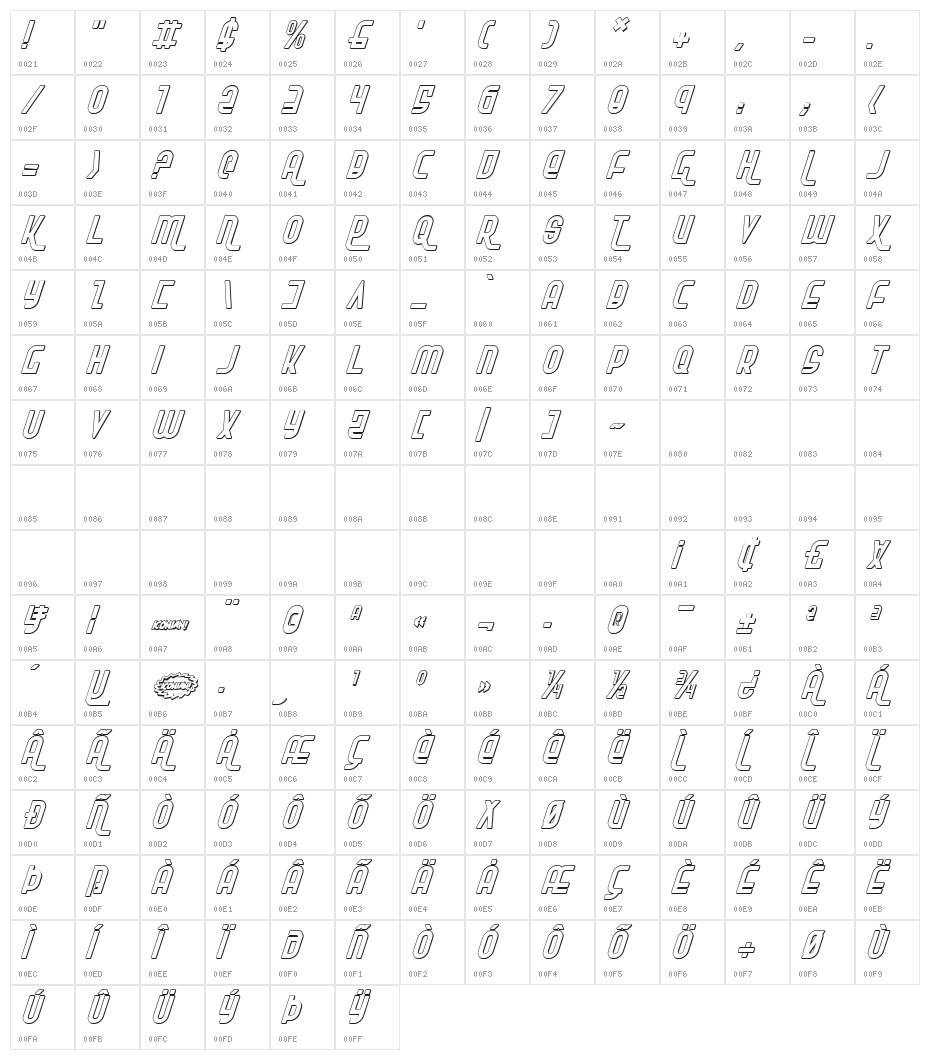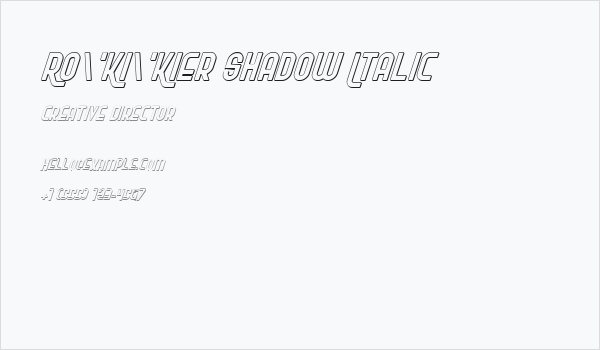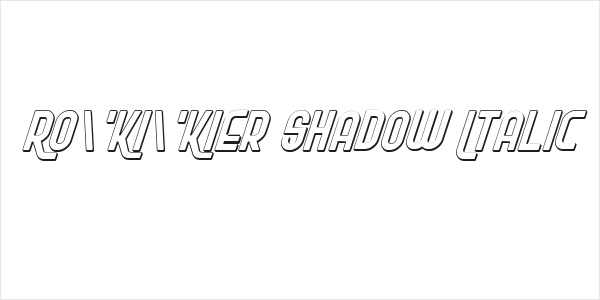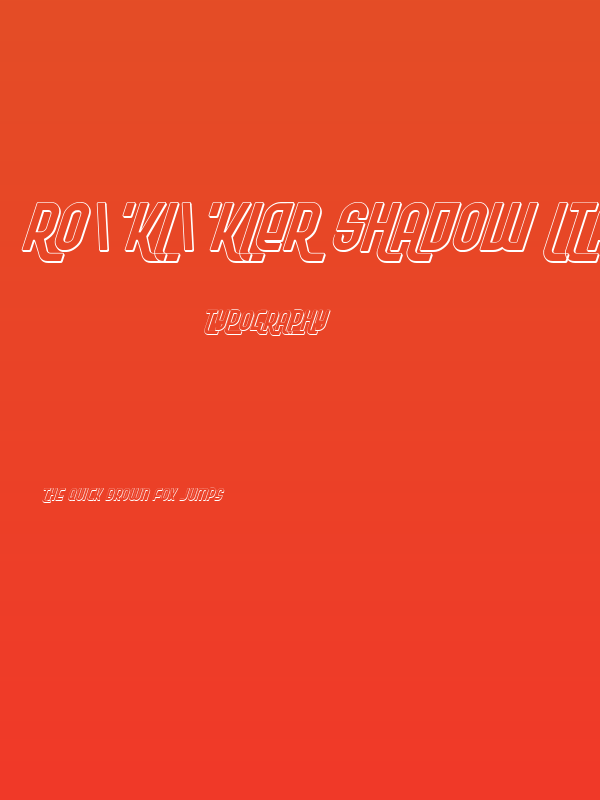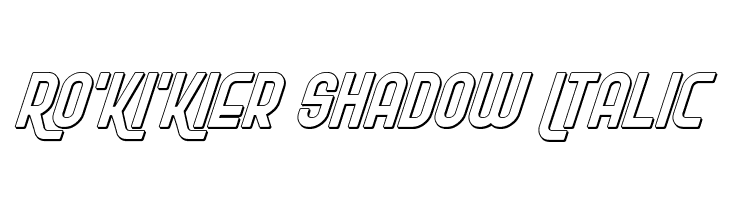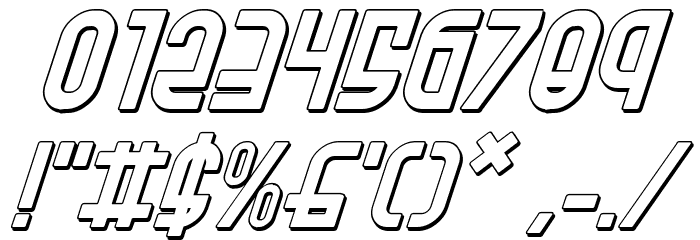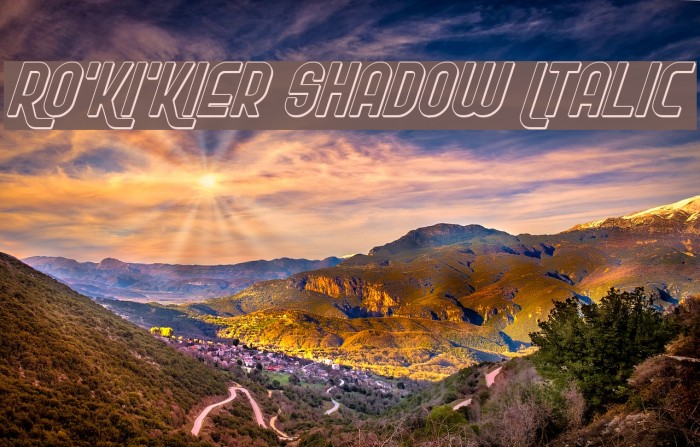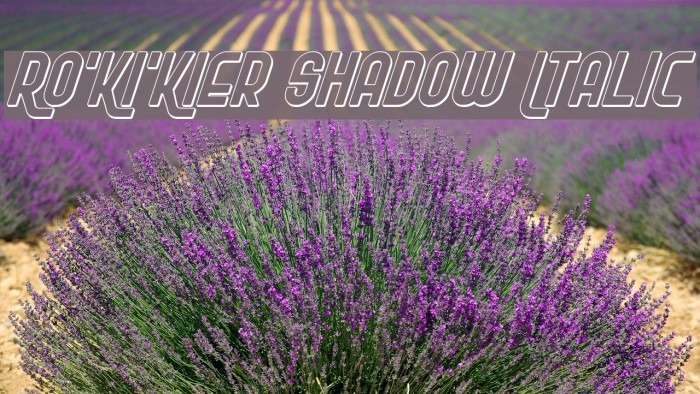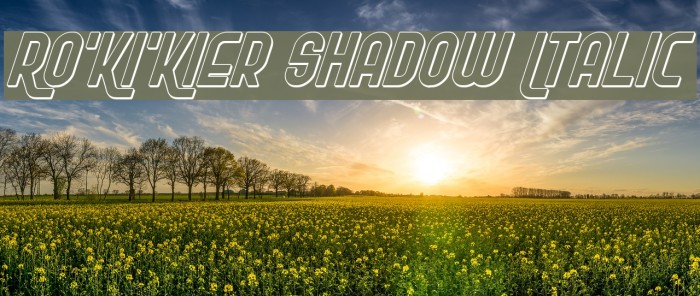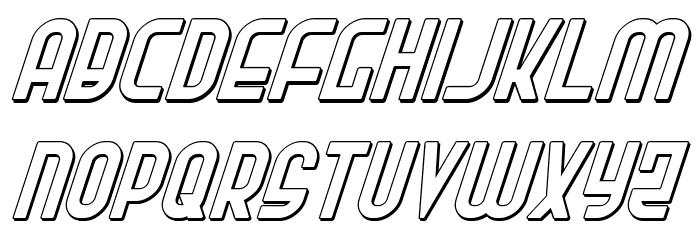
Ro'Ki'Kier Shadow Italic Font
Ro'Ki'Kier Shadow Italic Description
This font features a bold and dynamic design with a shadow effect that gives it a three-dimensional appearance. The characters are italicized, adding a sense of motion and energy. The strokes are thick and consistent, with a slight slant that enhances its modern and futuristic style. The shadow effect is cleverly integrated, providing depth without overwhelming the primary letterforms. This font is highly legible and makes a strong visual impact, suitable for attention-grabbing headlines and creative projects.
| Proposed Projects | Ideal for use in posters, logos, video game titles, and any project requiring a bold, futuristic look. |